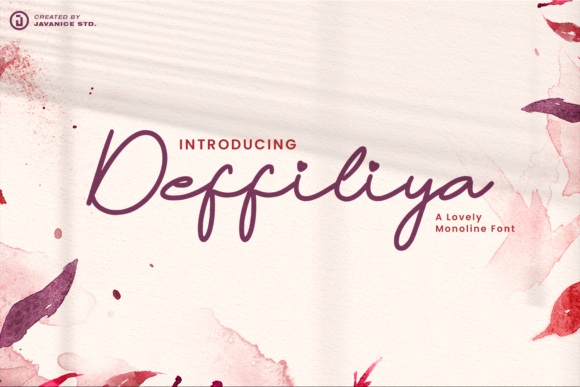
Unlocking the Charm of Deffiliya Font
Have you ever sat down with a blank sheet of paper and a pen, waiting for inspiration to strike? For designers, those moments of creativity can be the most magical. As you begin to sketch out ideas, the lines start to flow, and your handwriting transforms into a beautiful, unique script. This is exactly what Deffiliya Font aims to capture – the essence of handwritten charm, perfect for adding a personal touch to your designs.
Deffiliya Font is a relaxed and casual handwritten font, designed to bring a sense of warmth and personality to your projects. Whether you’re working on product packaging, branding, magazine covers, or social media graphics, this font is sure to make a lasting impression. Its versatility and expressiveness make it a valuable asset for designers, allowing them to convey their message in a unique and captivating way.
Deffiliya Font Key Features
- Font Family: Deffiliya
- Unique Characteristics: Features a modern, elegant design with a mix of geometric and organic elements, making it suitable for various design projects, from logos to body text
Deffiliya Font Review
Overall, I’m quite impressed with the Deffiliya Font. It has a unique and eye-catching aesthetic that can add a touch of sophistication to any design project. ✨ The font’s elegant script style makes it perfect for invitations, wedding designs, and other formal events. The font’s versatility also makes it suitable for use in digital and print media.
The Deffiliya Font comes with a wide range of characters, including uppercase and lowercase letters, numbers, and special characters. The font also includes ligatures, which can help create a more polished and refined look. ✨ The font’s weight and size options allow for easy customization, making it easy to adapt to different design needs.
While the Deffiliya Font is a solid choice, there are a few limitations to consider:
- ⚠️ The font may not be as readable in smaller sizes or when used for extensive blocks of text.
- ⚠️ The font’s ligatures may not be supported by all devices or software, which could affect the overall design.
- ⚠️ The font may not be suitable for use in digital media where a more modern or minimalist aesthetic is desired.
Overall, I think the Deffiliya Font is a great choice for designers looking to add a touch of elegance and sophistication to their projects. While it may have some limitations, the font’s unique style and versatility make it a valuable addition to any design toolkit.
Getting the Most Out of Deffiliya Font
For optimal results, use Deffiliya Font in bold or italic styles to add emphasis and visual interest.
Pair Deffiliya Font with complementary fonts to create a visually appealing design.
Deffiliya Font is ideal for:
1. Headings and titles.
2. Emphasizing important text.
3. Creating a unique and eye-catching design.
Alternatives to Deffiliya Font for Designers
Great Vibes Font is a modern script font that is perfect for creating a unique and stylish look. It is ideal for use in logos, branding materials, and other promotional materials where a touch of elegance is required. Great Vibes Font is similar to Deffiliya Font in its fluid and dynamic nature, but it has a more refined and sophisticated feel.
Pacifico Font is a beautiful and elegant script font that is reminiscent of handwritten notes. It is perfect for use in wedding invitations, greeting cards, and other materials where a personal touch is required. Pacifico Font is similar to Deffiliya Font in its relaxed and casual feel, but it has a more vintage and nostalgic quality.
Dancing Script Font is a lively and energetic script font that is perfect for creating a fun and playful look. It is ideal for use in social media graphics, posters, and other materials where a bold and eye-catching effect is required. Dancing Script Font is similar to Deffiliya Font in its dynamic and expressive nature, but it has a more whimsical and carefree feel.